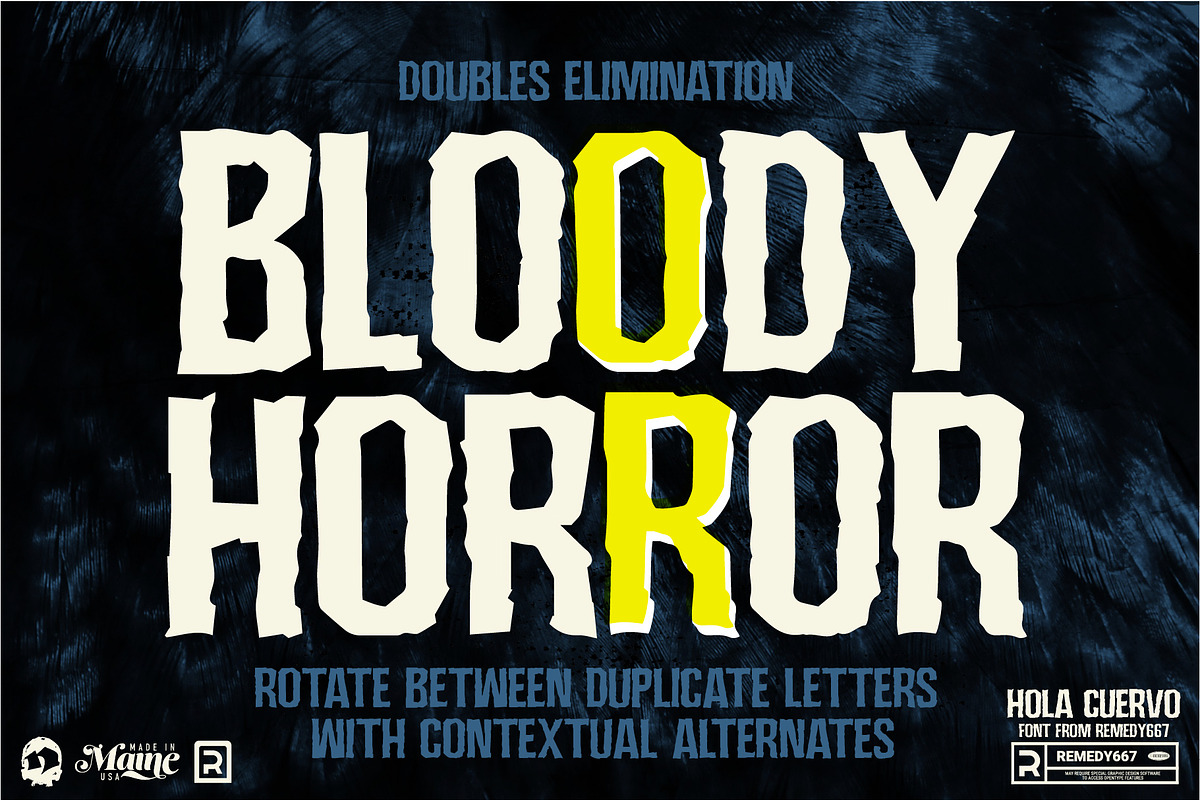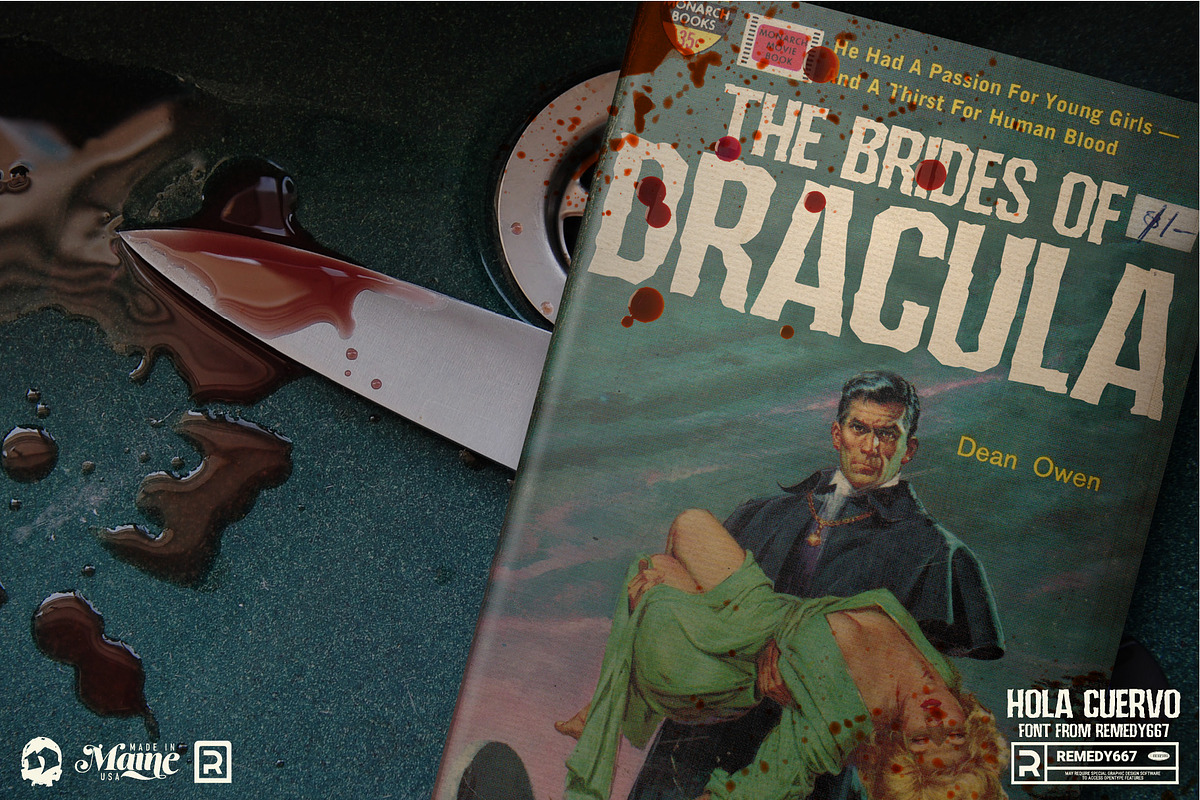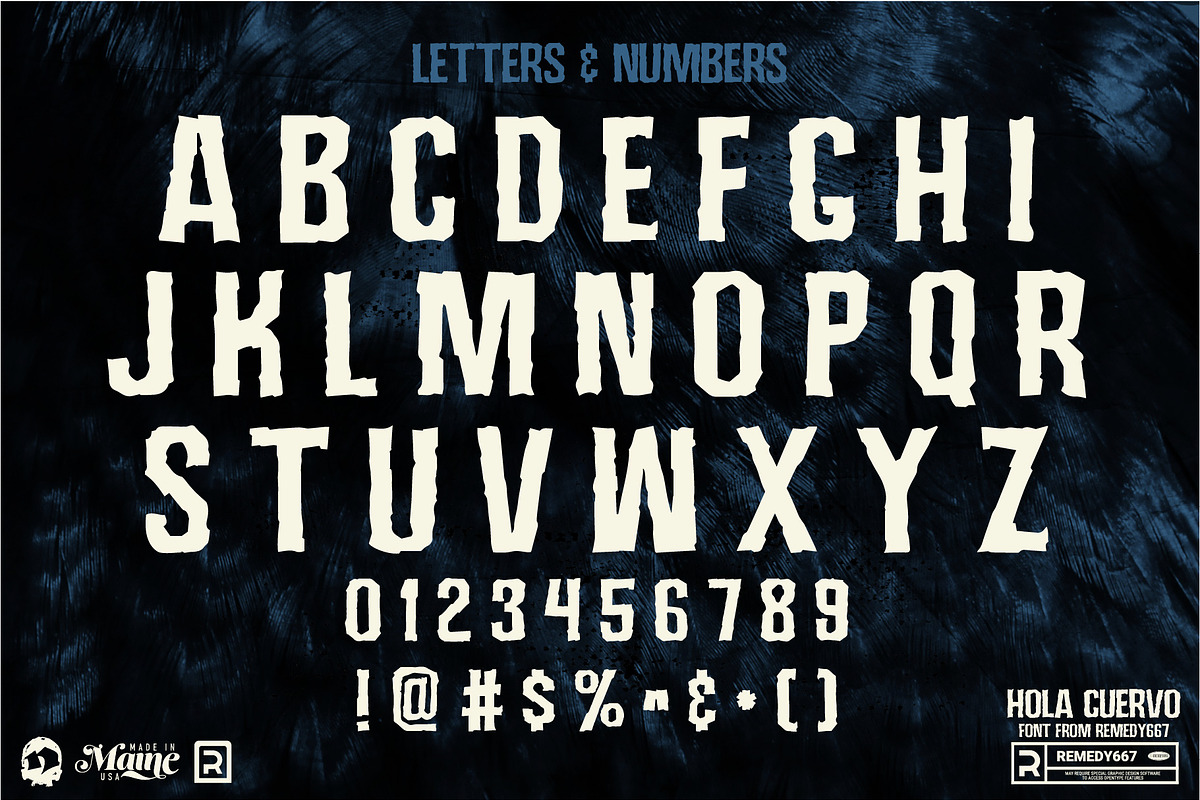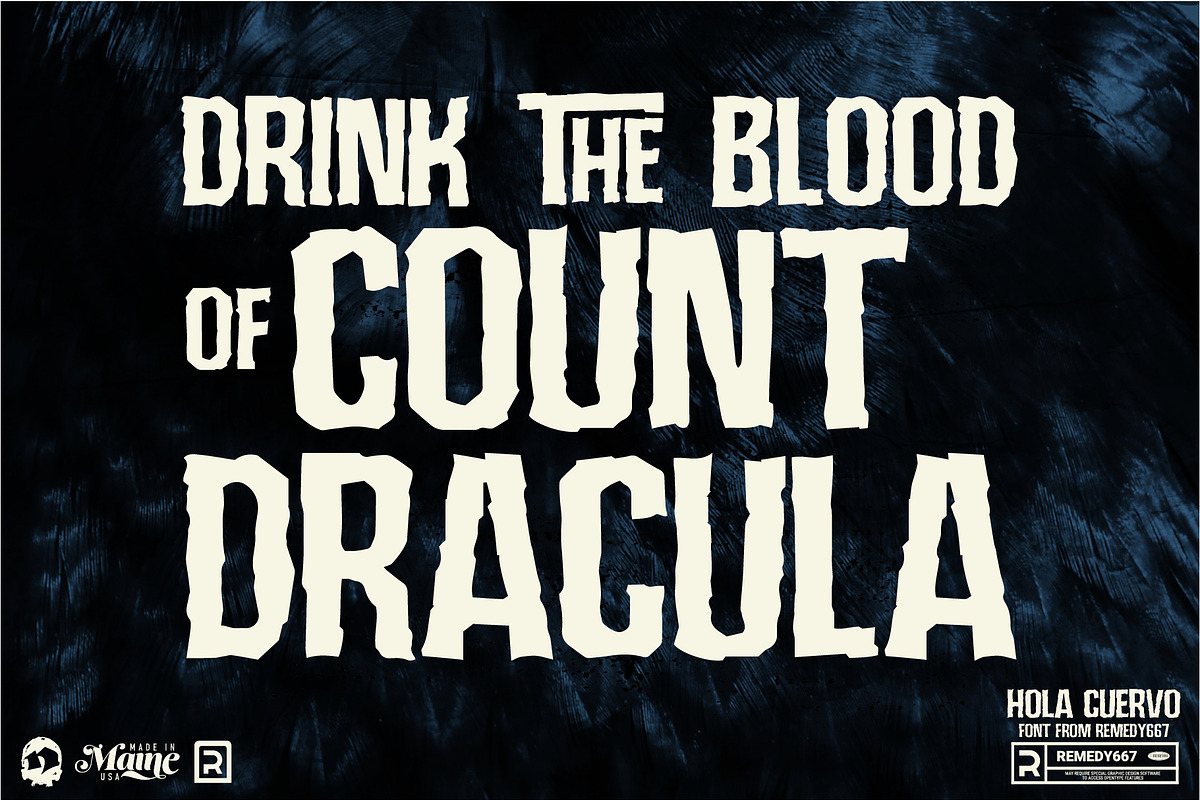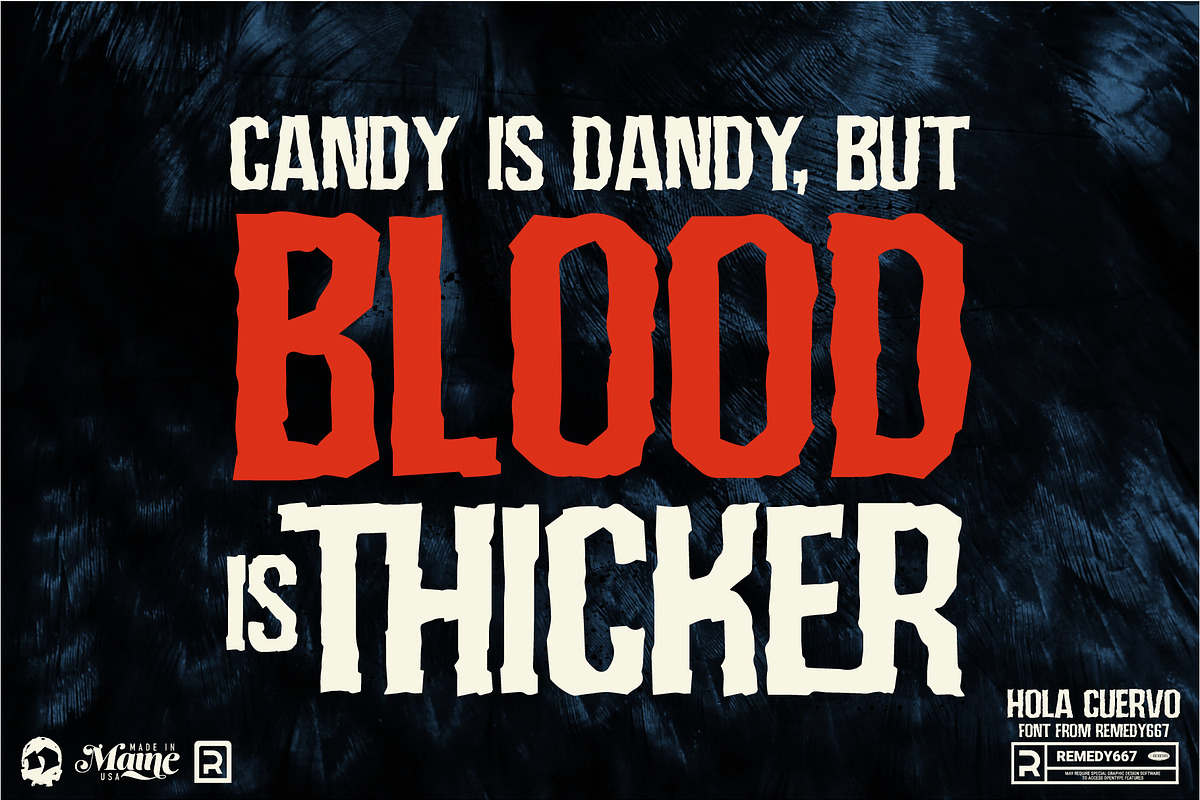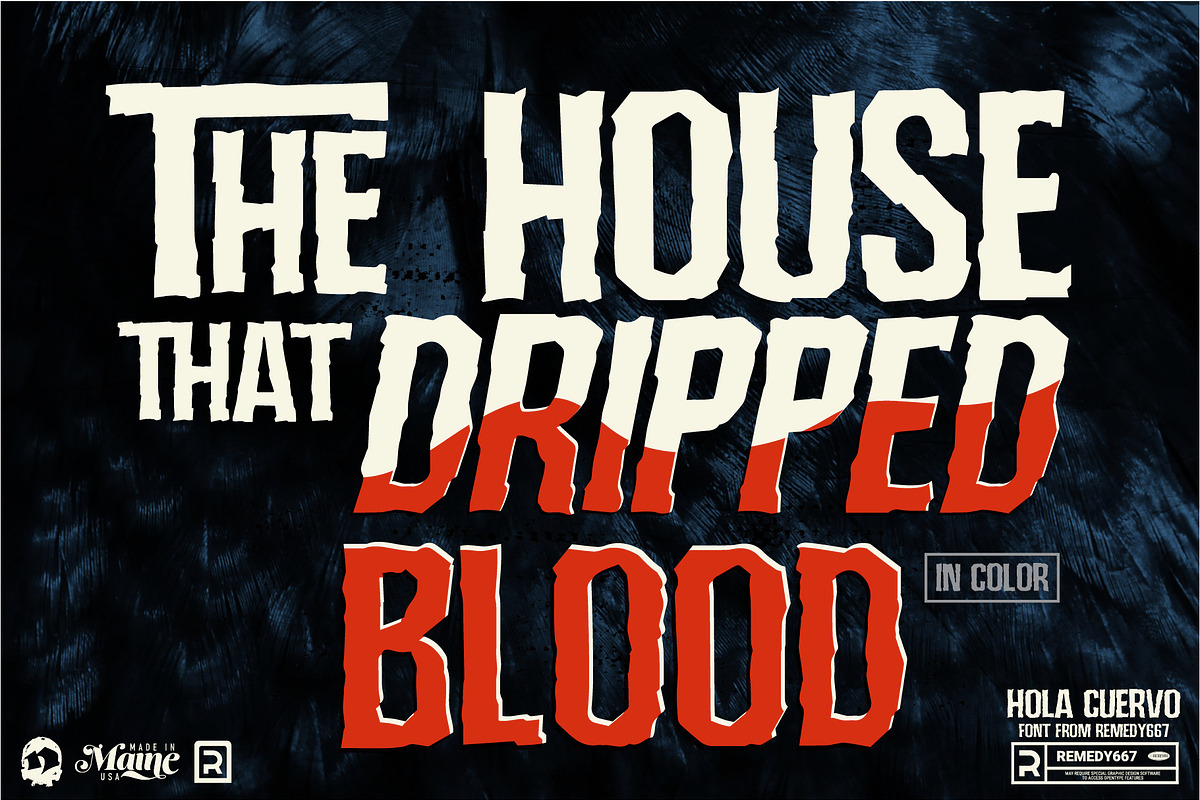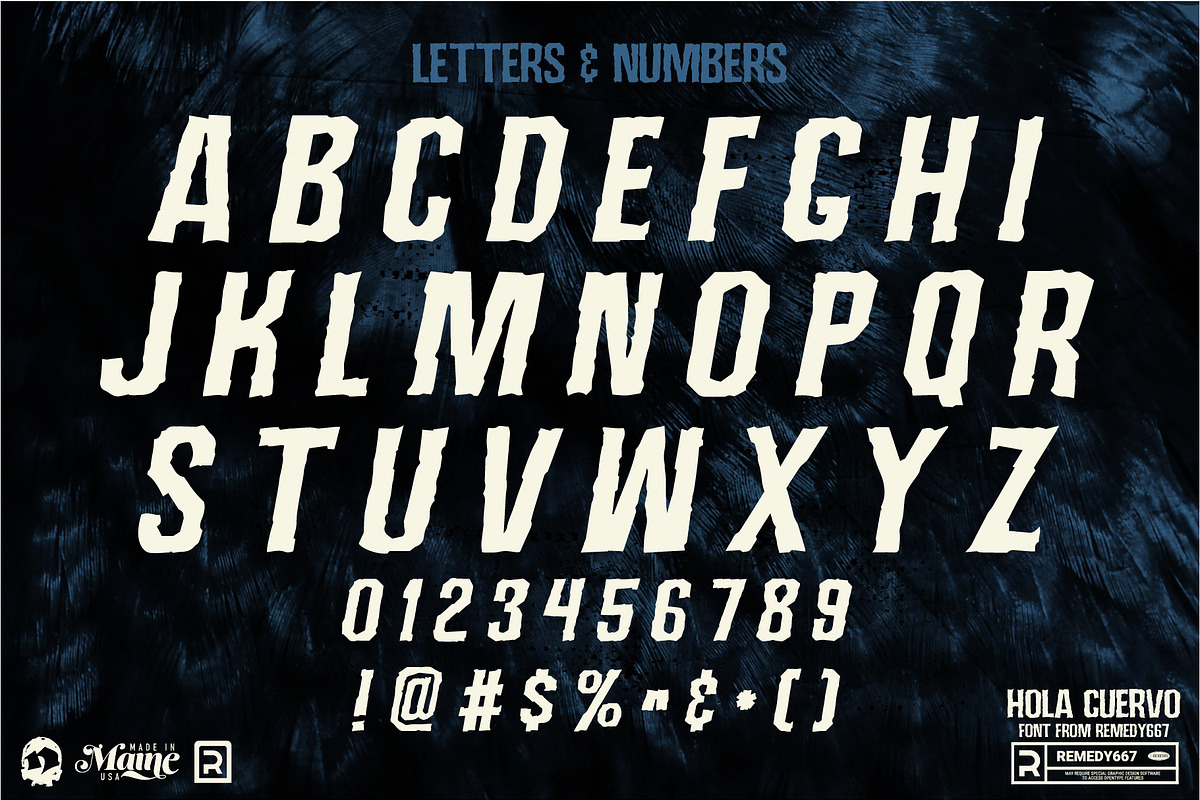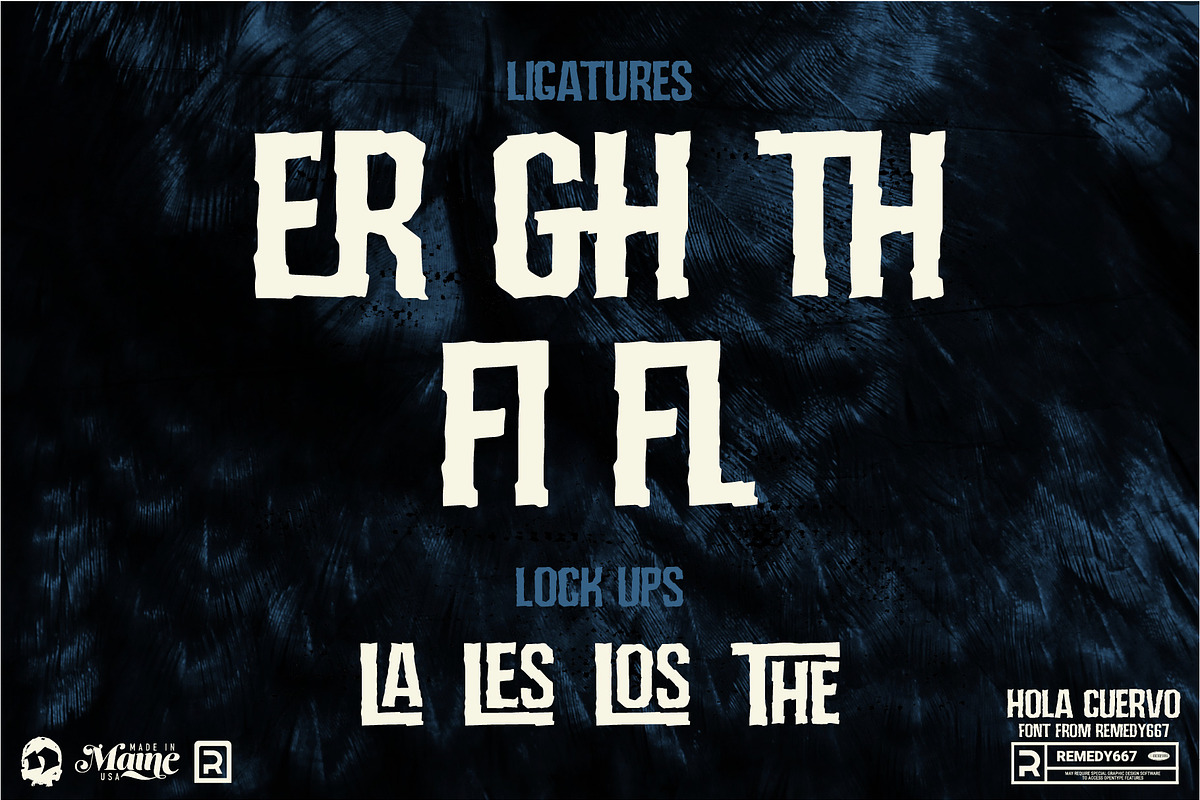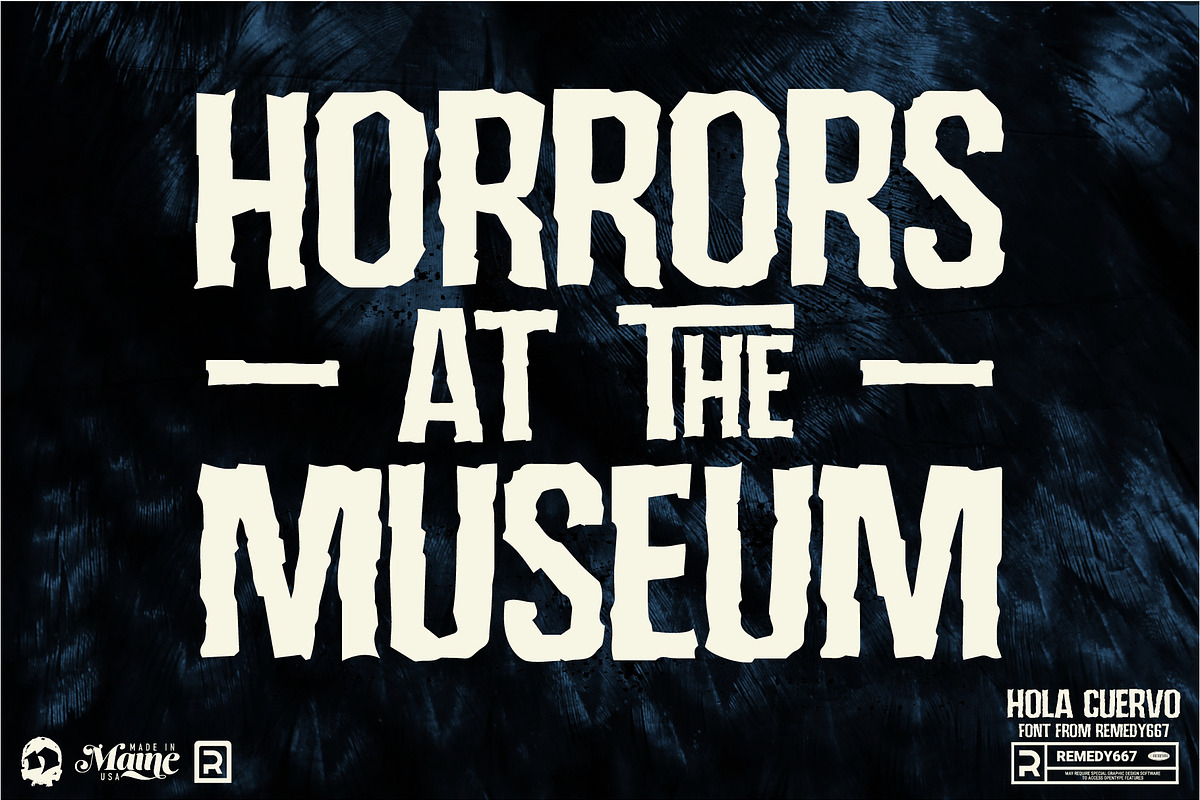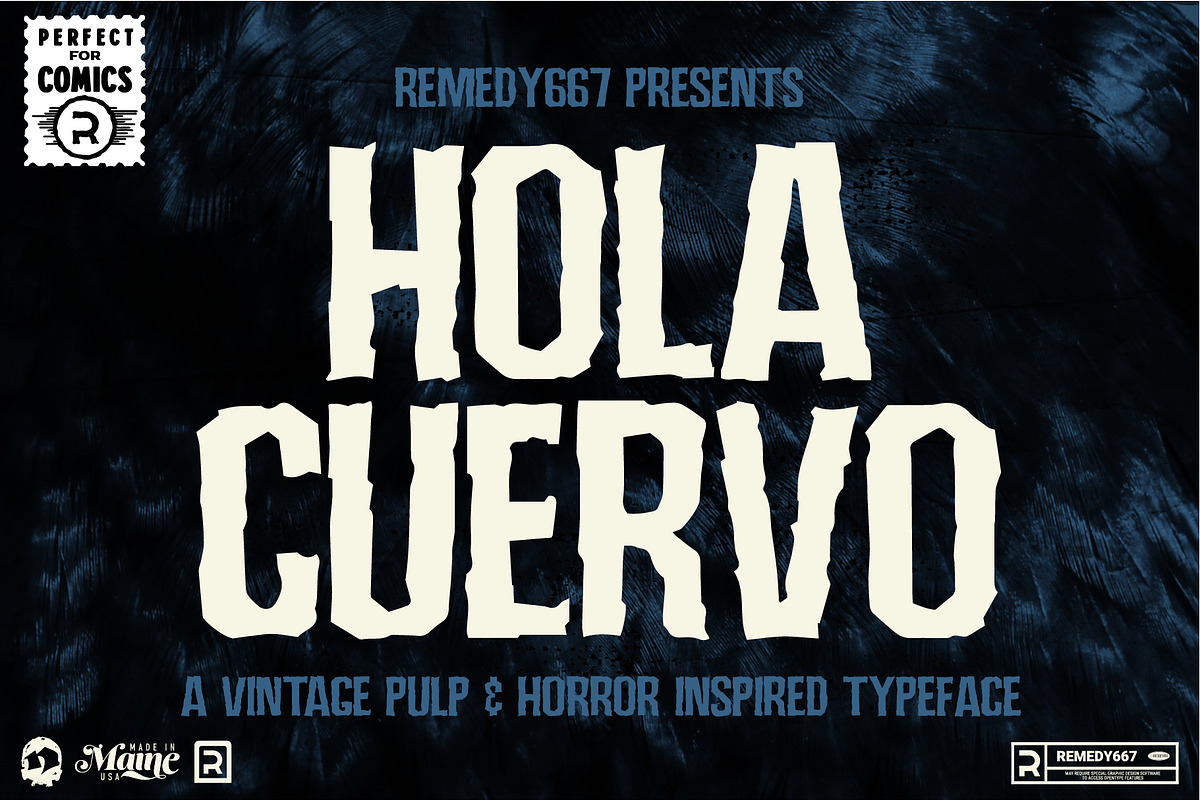
Hola Cuervo
Hola Cuervo is a horror display font inspired by classic horror movie posters, designed to capture that vintage chill with a cleaner, more refined edge. Originally imagined as a sleeker counterpart to the font Screature from Remedy667. Hola Cuervo delivers bold, sharp forms with a consistent line weight that keeps everything crisp and highly readable.
Built for the next generation of horror design, Hola Cuervo brings heavy, striking letterforms that command attention without overpowering your layout. Whether you're crafting posters, logos, or title treatments, this typeface delivers just the right amount of menace while staying polished and versatile.
Now fully expanded and refined, Hola Cuervo has evolved into a complete, production-ready typeface, blending retro horror charm with modern usability.
Full character set with expanded glyph coverage
Rotating doubles to eliminate repetition and improve natural flow
Updated kerning for smoother, more consistent spacing
Oblique version for added flexibility and dynamic layouts
Clean, consistent line weight for strong readability at display sizes
Inspired by vintage horror movie posters with a refined, modern finish